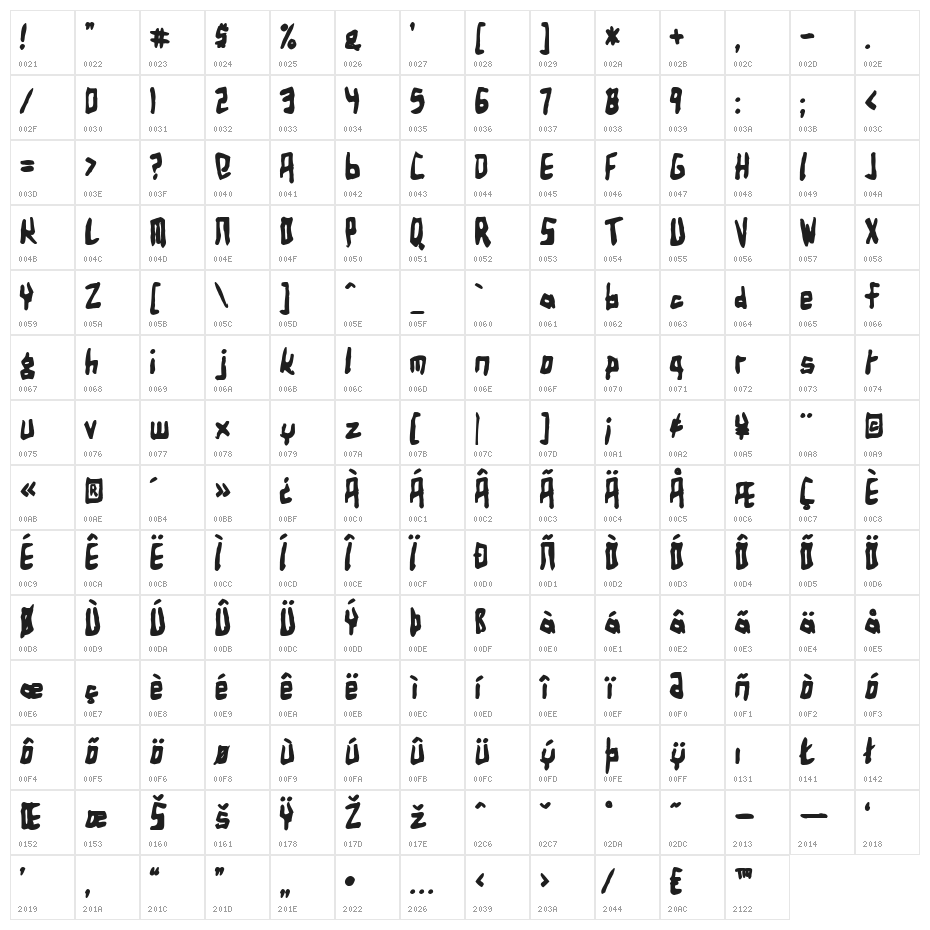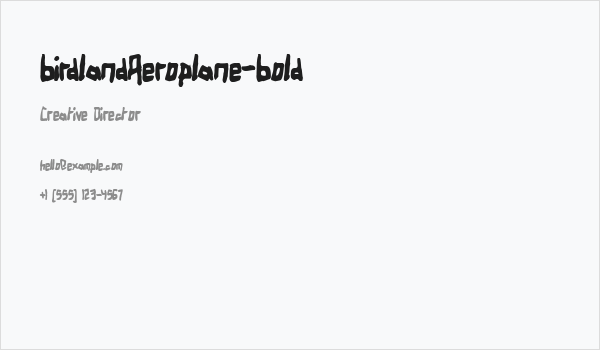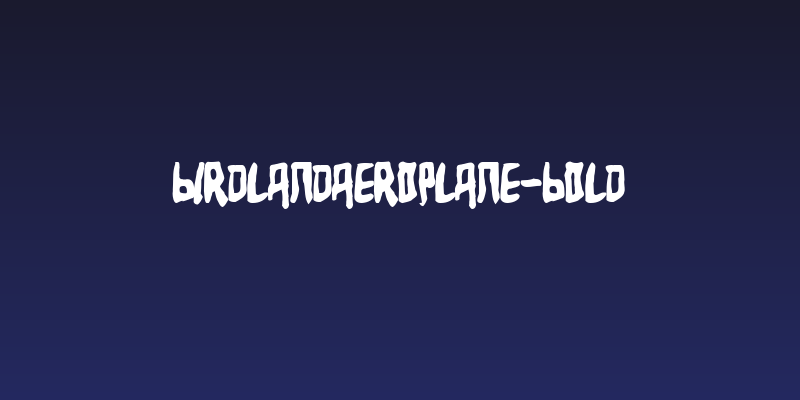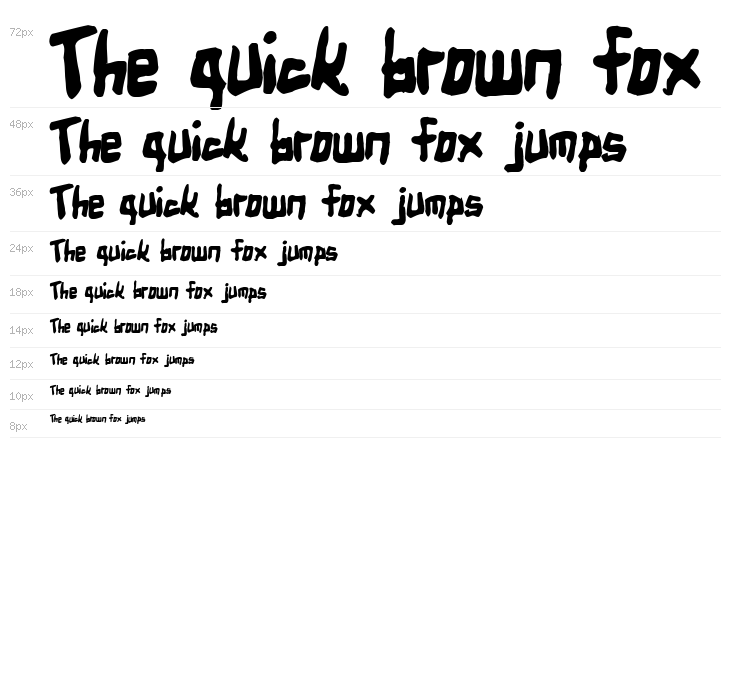
BirdlandAeroplane-Bold Font
BirdlandAeroplane-Bold Description
This font features a bold and expressive style with a hand-drawn appearance. The characters are irregular and organic, giving a playful and artistic vibe. The uppercase letters are bold and slightly condensed, while the lowercase letters maintain a consistent weight with a more relaxed form. Numbers and special characters follow the same bold, hand-crafted aesthetic, making this font ideal for creative and informal designs. The overall look is dynamic and energetic, with a unique charm that stands out.
| Proposed Projects | Ideal for posters, album covers, children's books, and creative branding projects. |